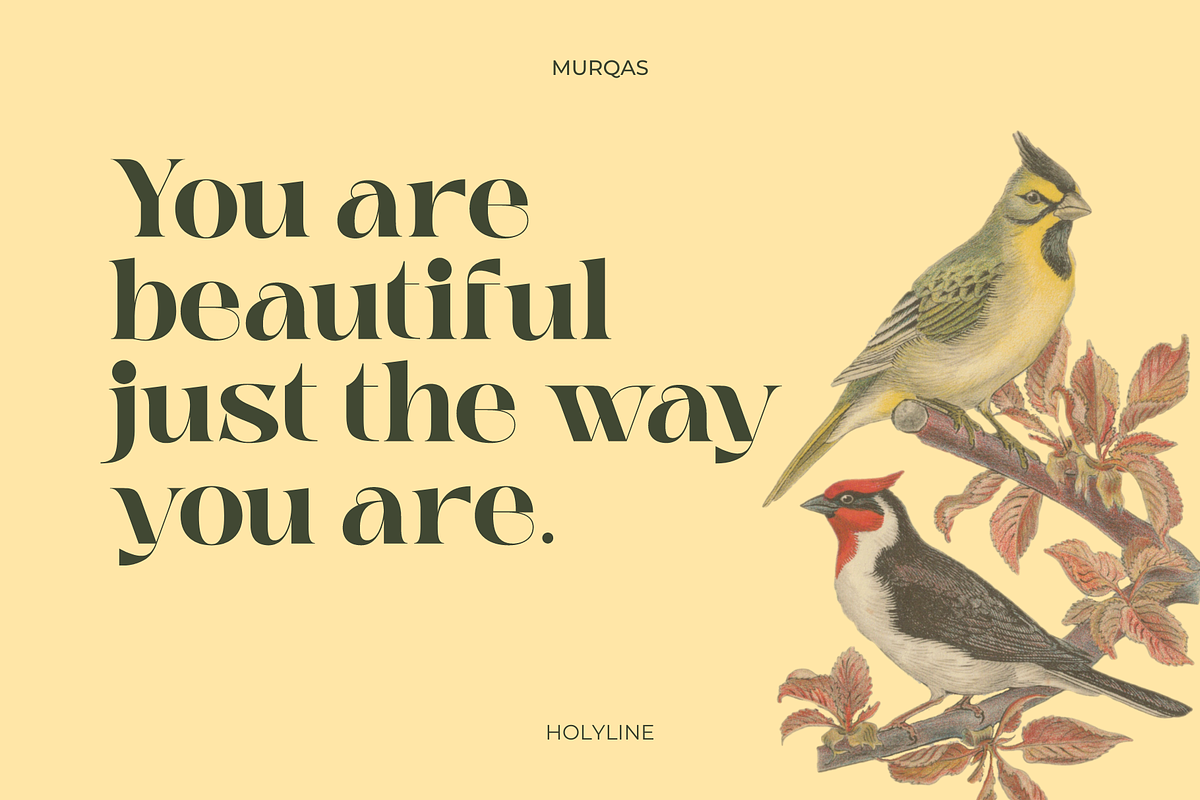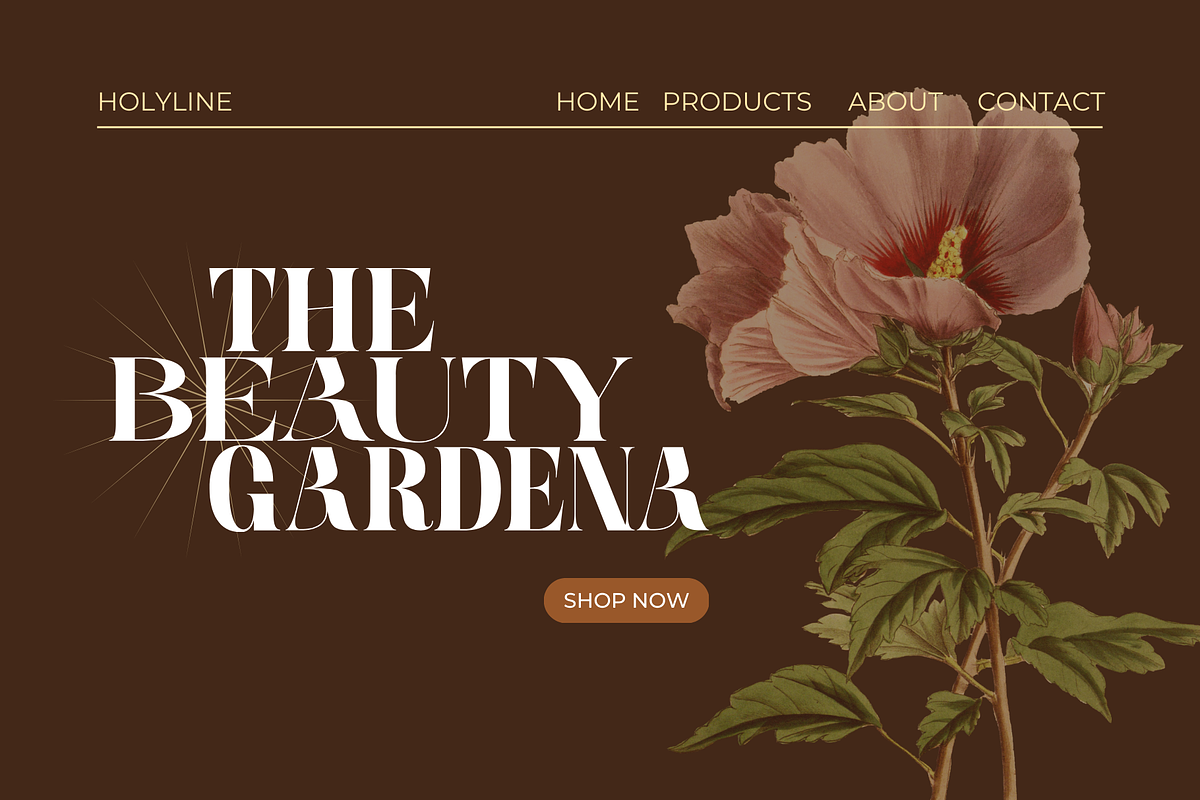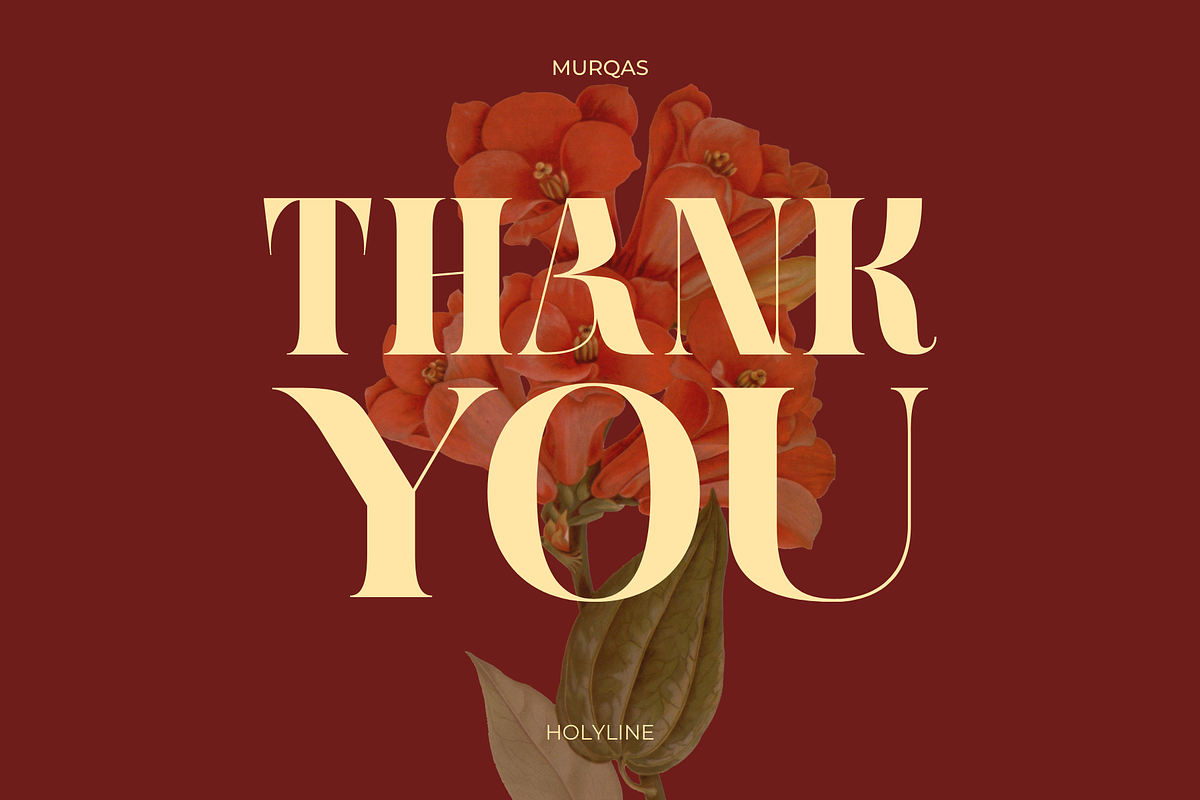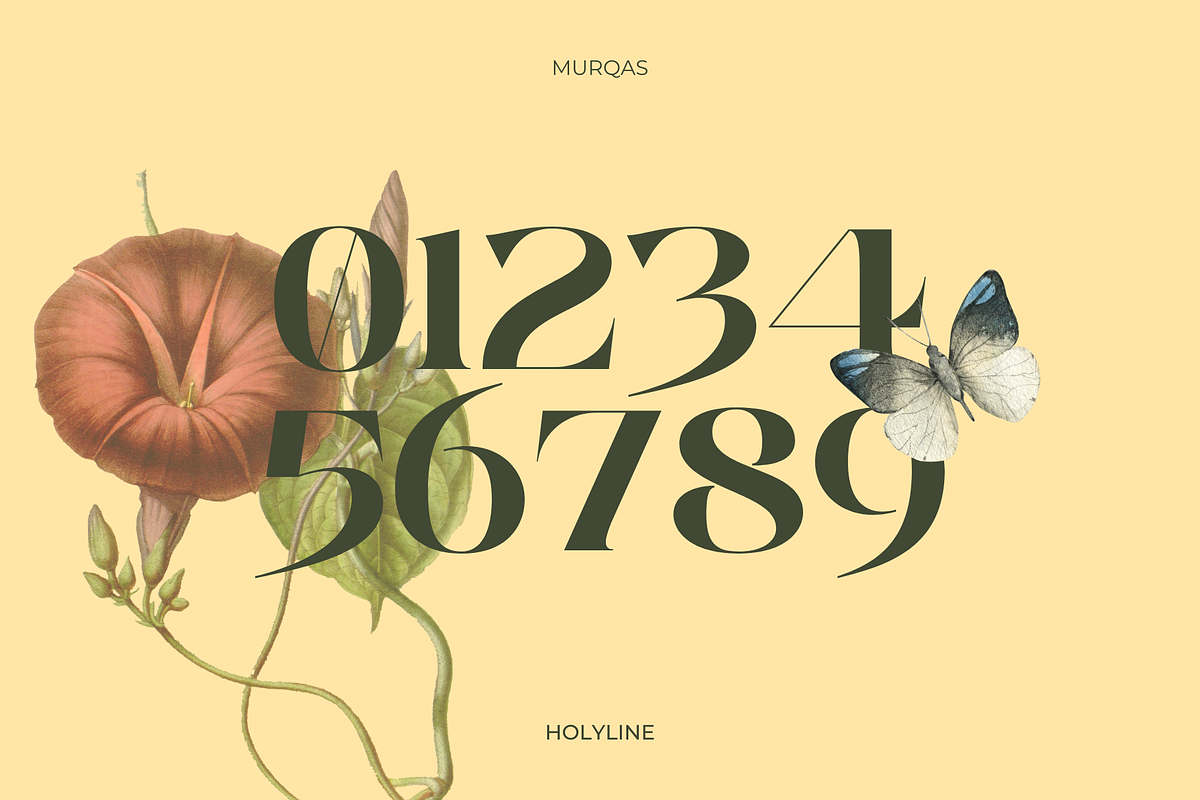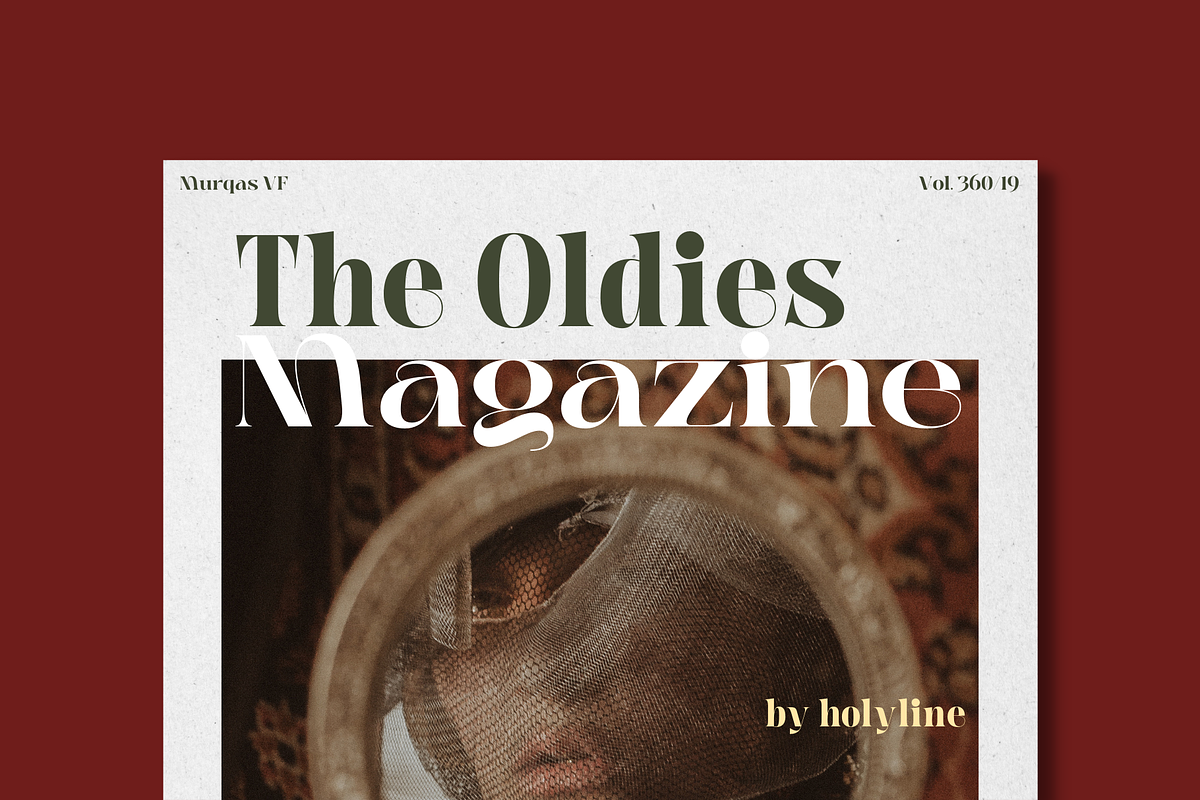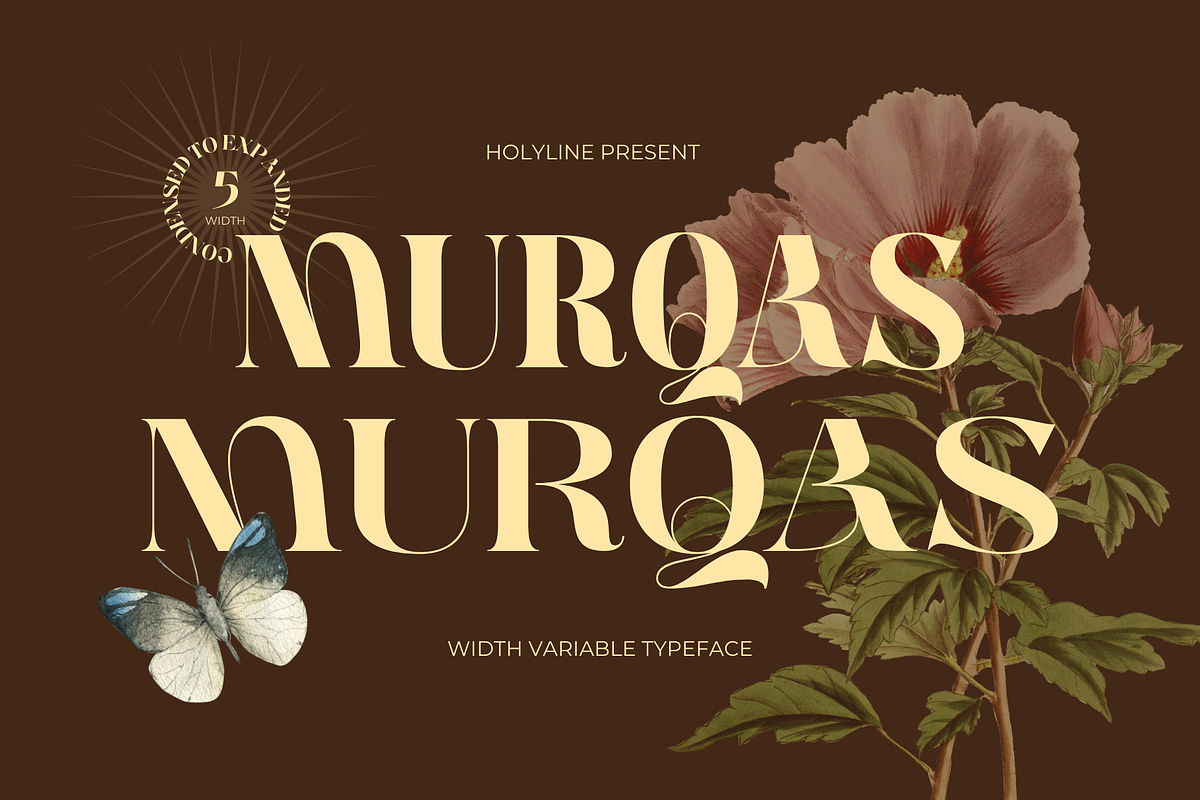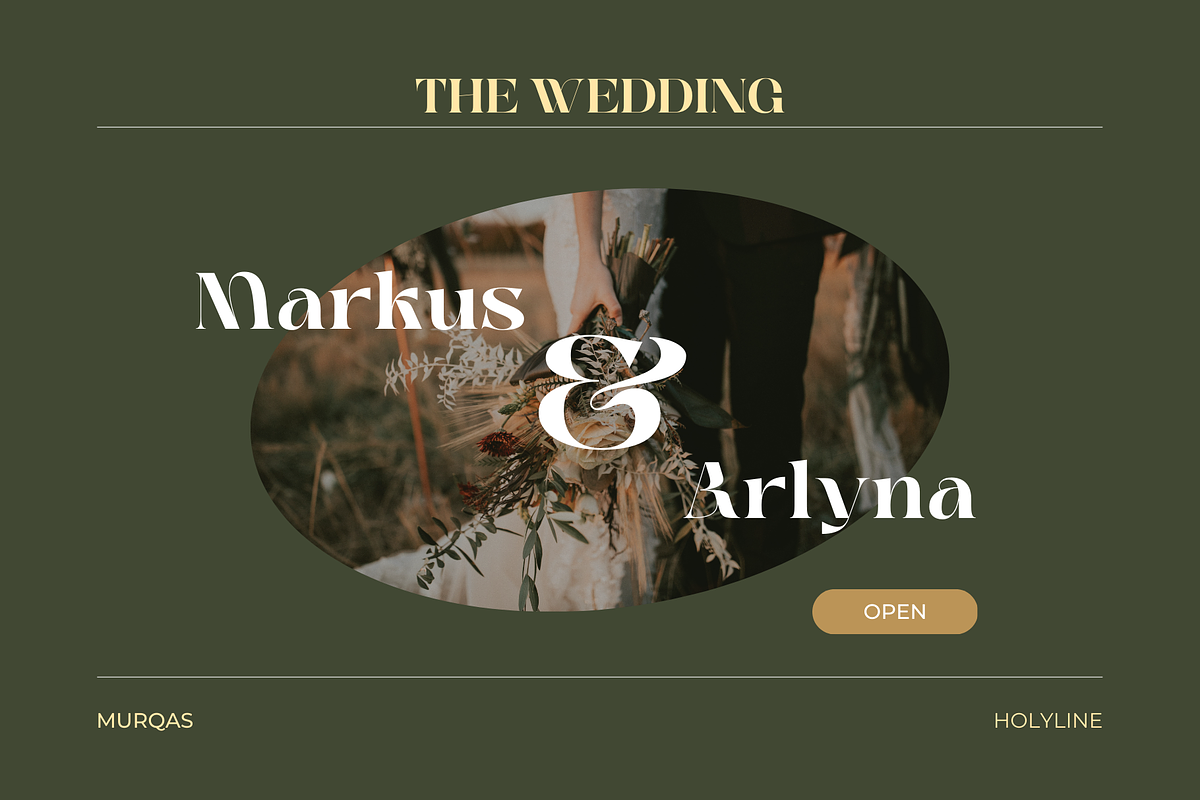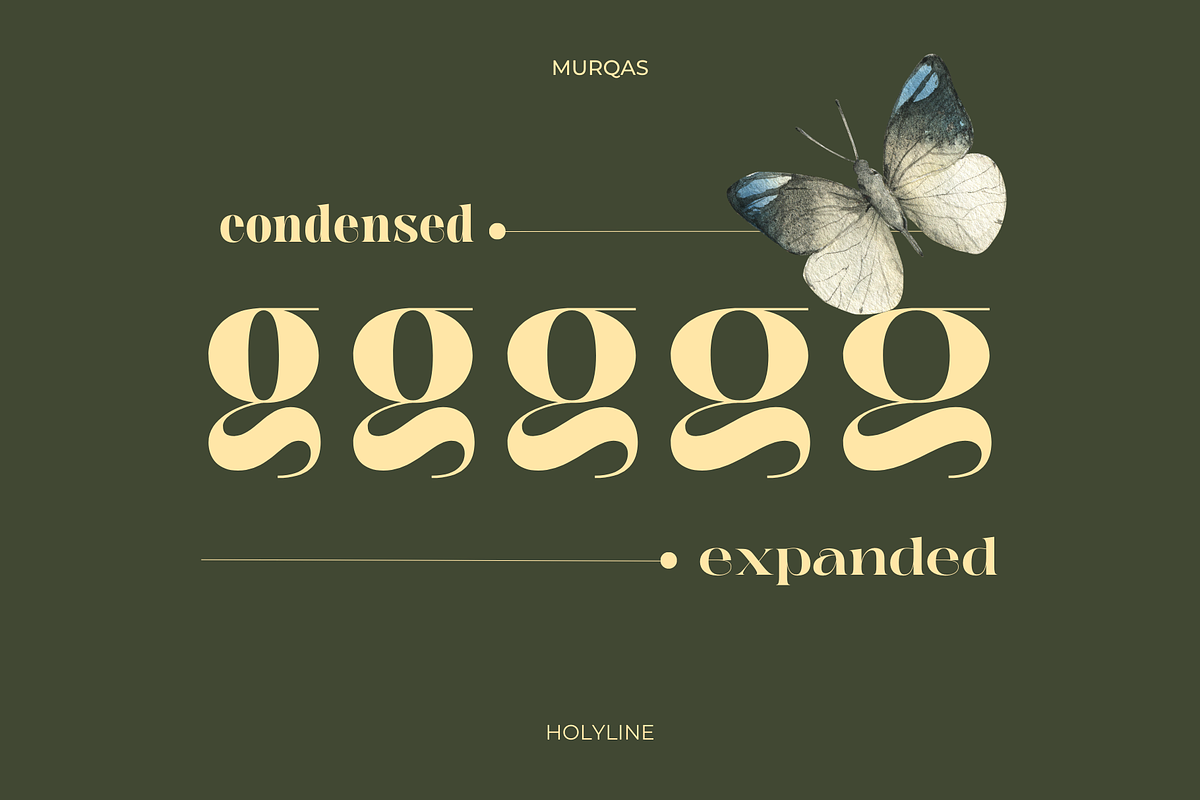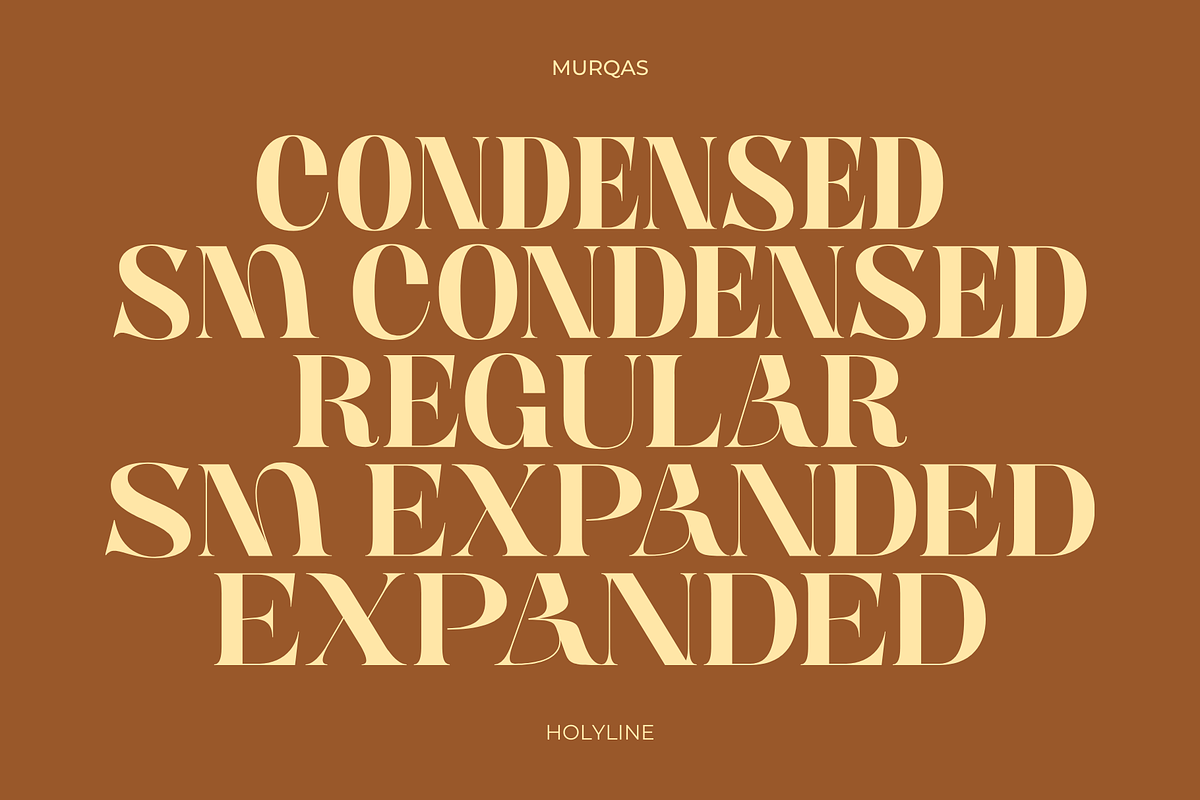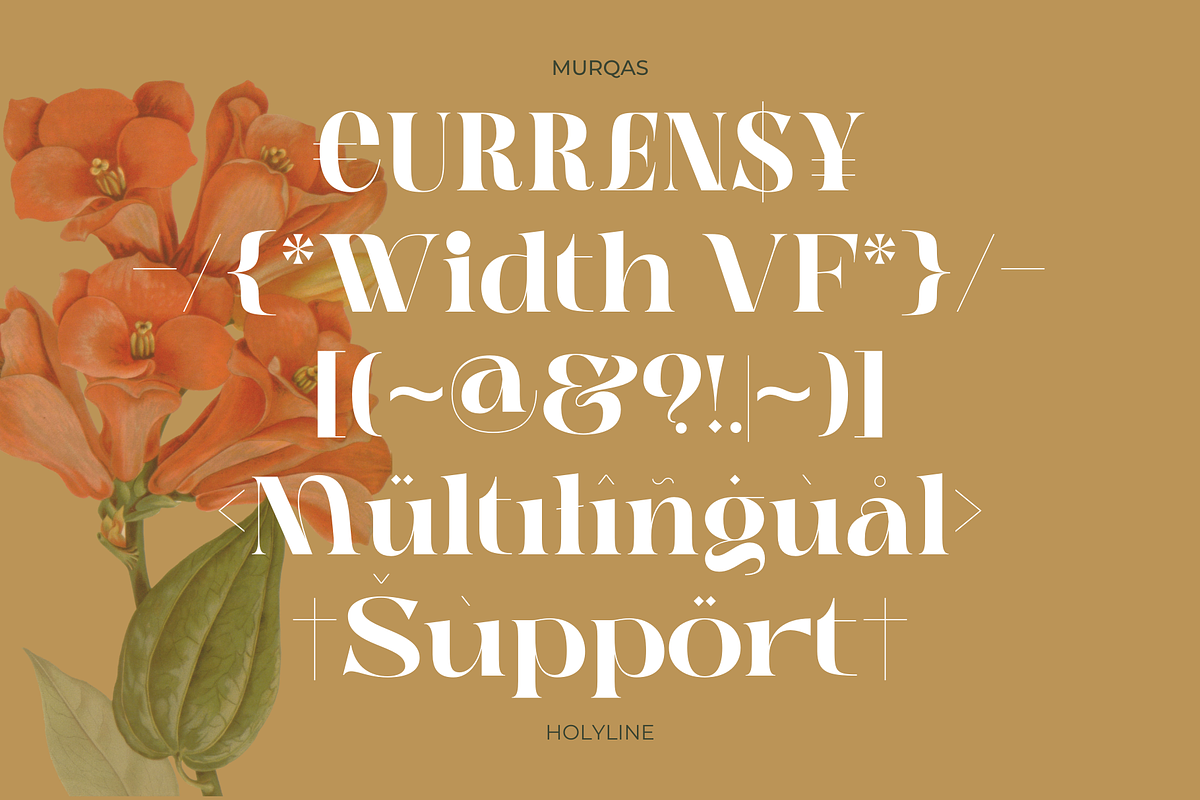
Murqas - Width Family
MURQAS by Holyline is a Retro serif and width variable typeface, have 5 style condensed to expanded . It's very unique, elegant, bold and have beautiful shapes from each character . MURQAS perfect for headline, custom logo, merchandise, packaging, wedding designs, invitations, watermark,social media posts, label, and anything for your creativity and MURQAS is perfect typeface if you want something new with your project. And you can play and choose the width axis, for make your project more awesome! Happy creating!